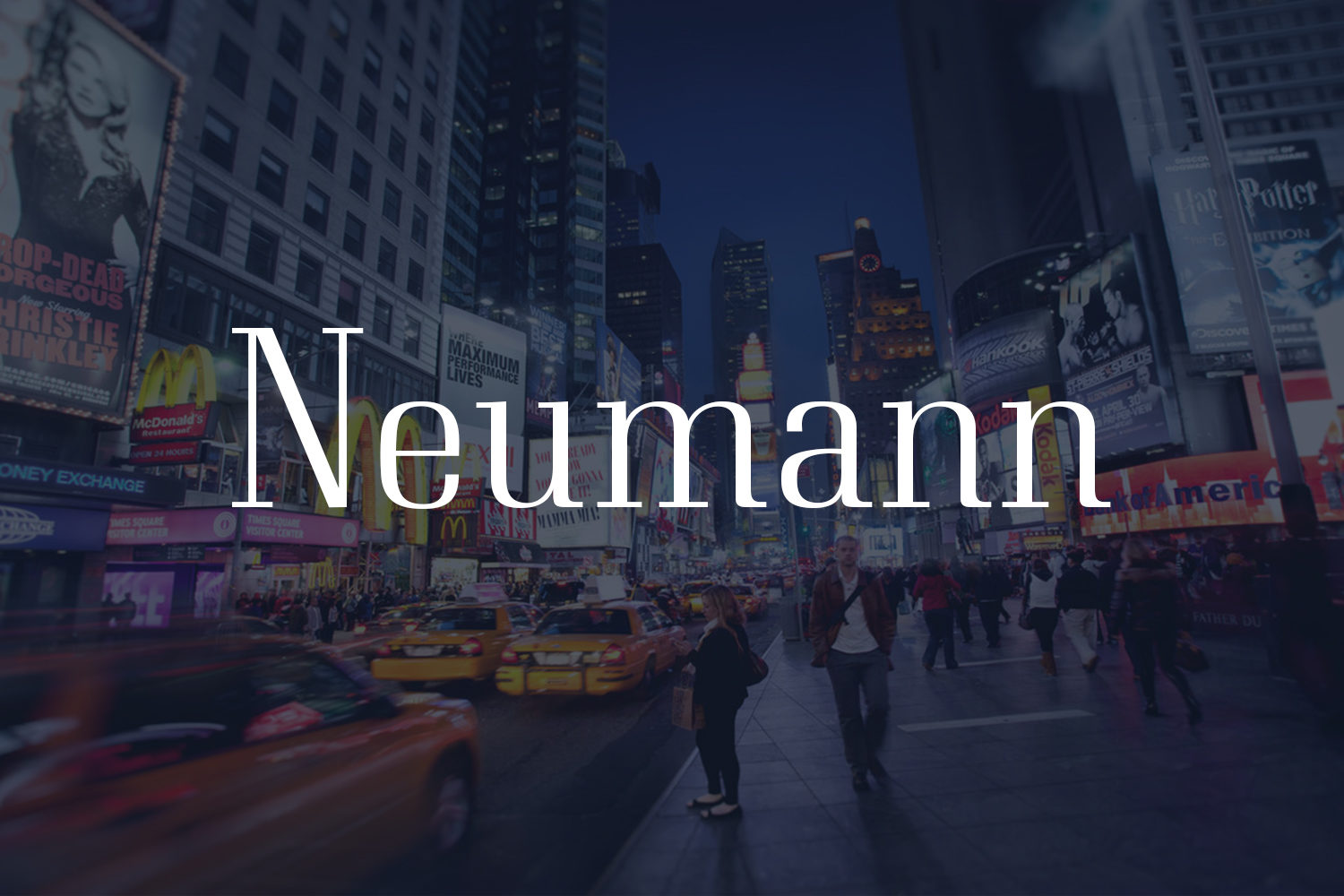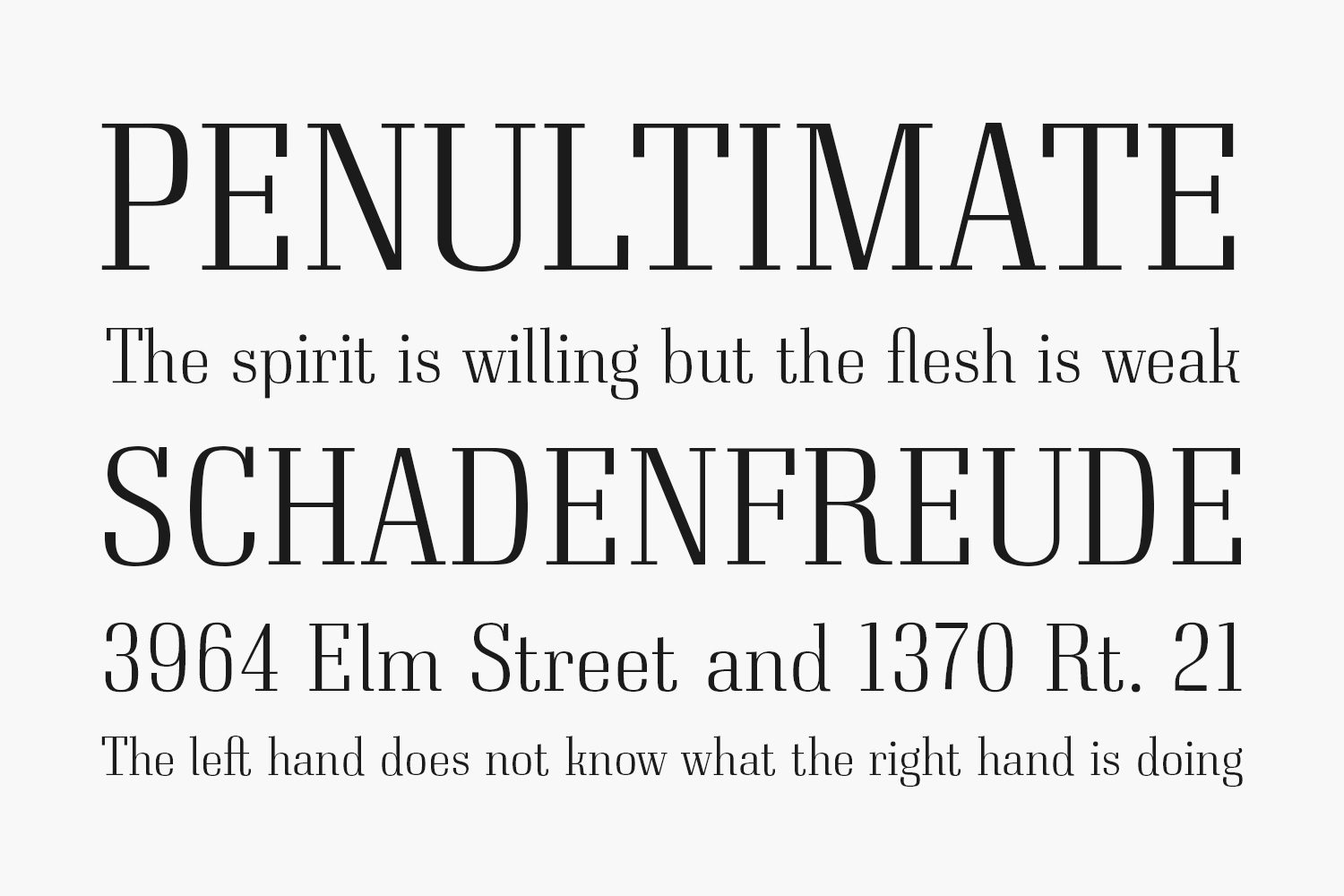
Neumann Free Font is the result of almost three years wandering between design decisions and constant changes. With the Neumann typeface we try to add a bit of fresh air in the Didones scene with its more rectangular look and more manly appearance.